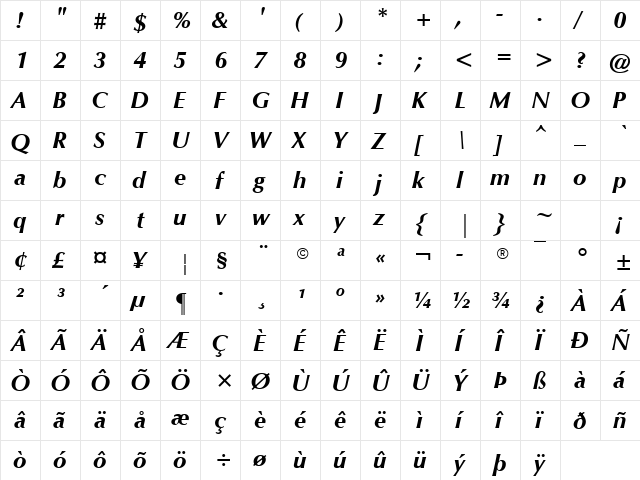
CG Omega Bold Italic
Design Context for CG Omega Typeface
CG Omega is a composed and adaptable typeface that performs quietly and consistently across a wide range of design contexts. Its italic angle brings a sense of urgency and motion to the letterforms. Its bold stroke weight gives it real presence on the page.
Pro Tip: Use CG Omega for emphasis, pull quotes, and subheadings where its slanted energy can add rhythm to the layout.